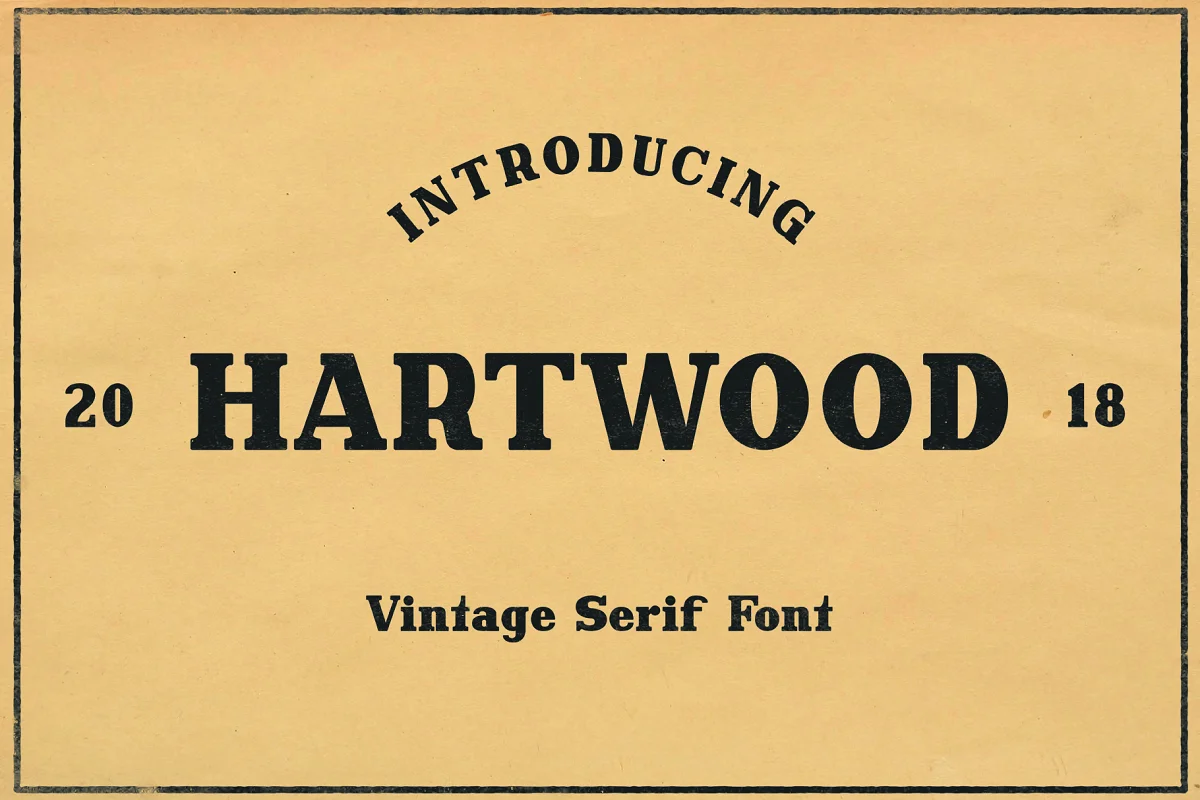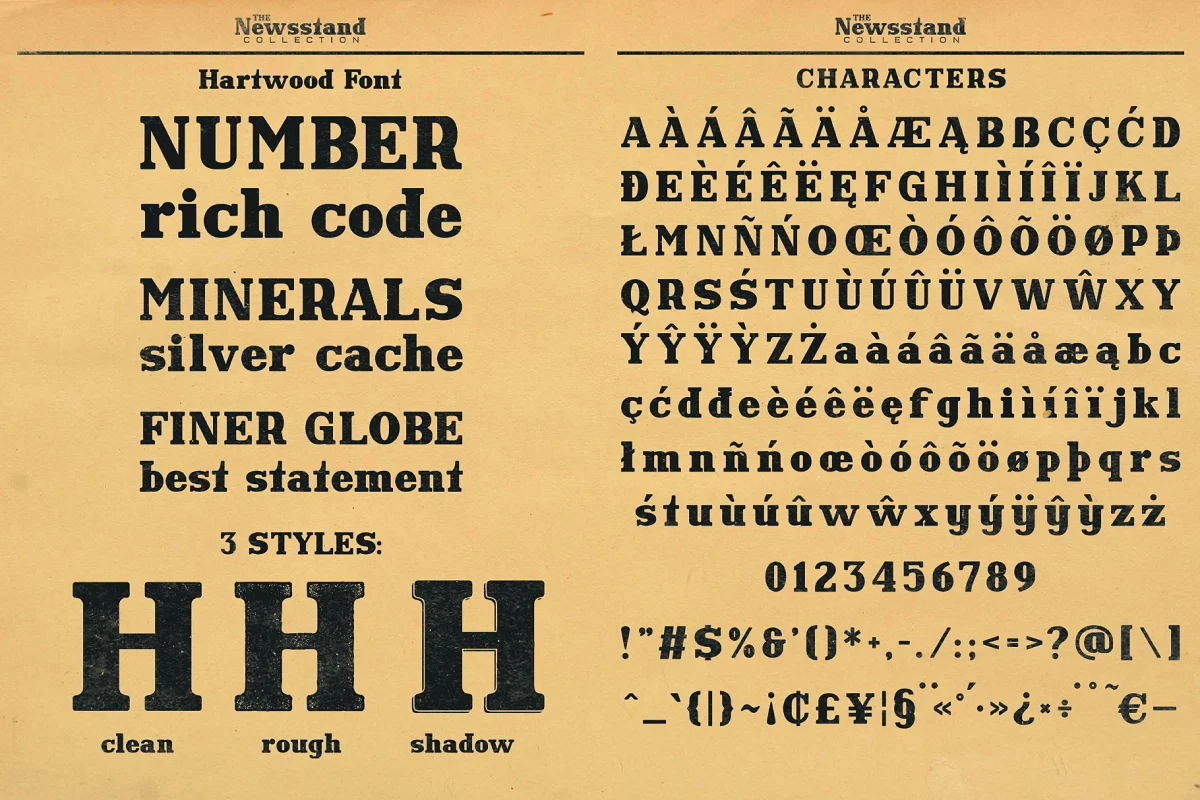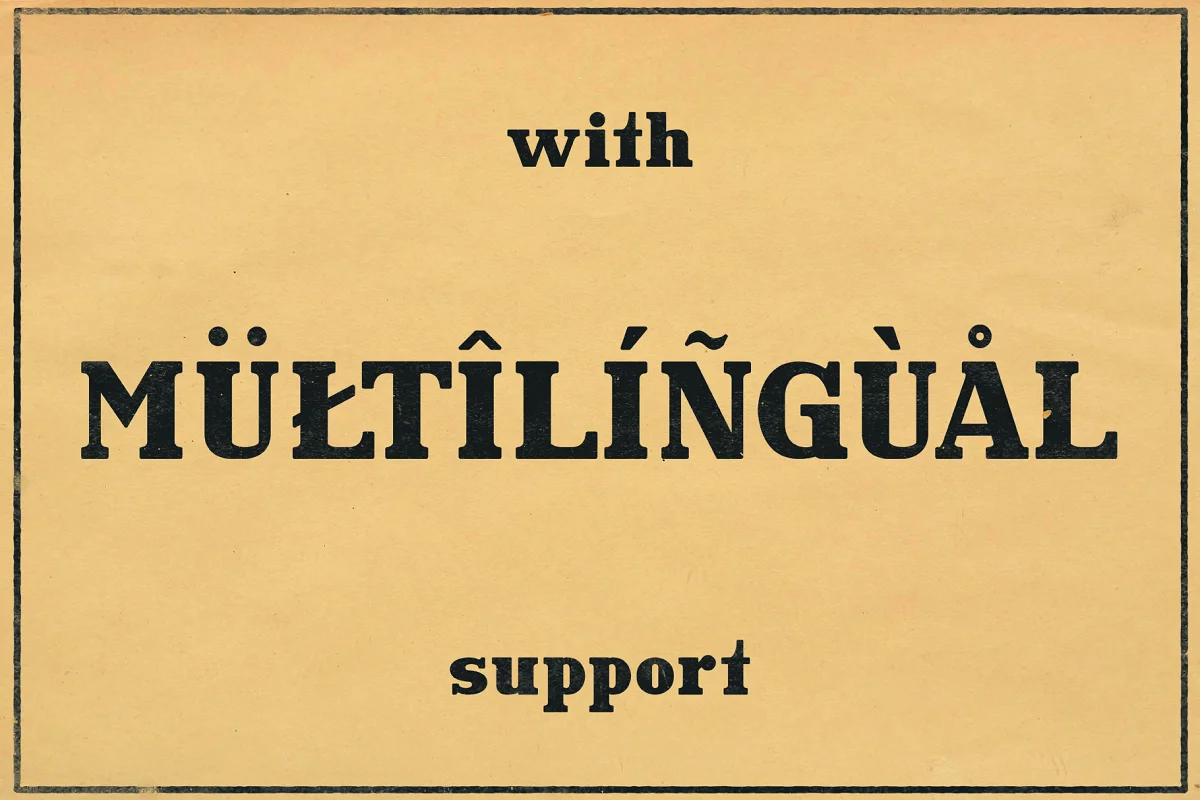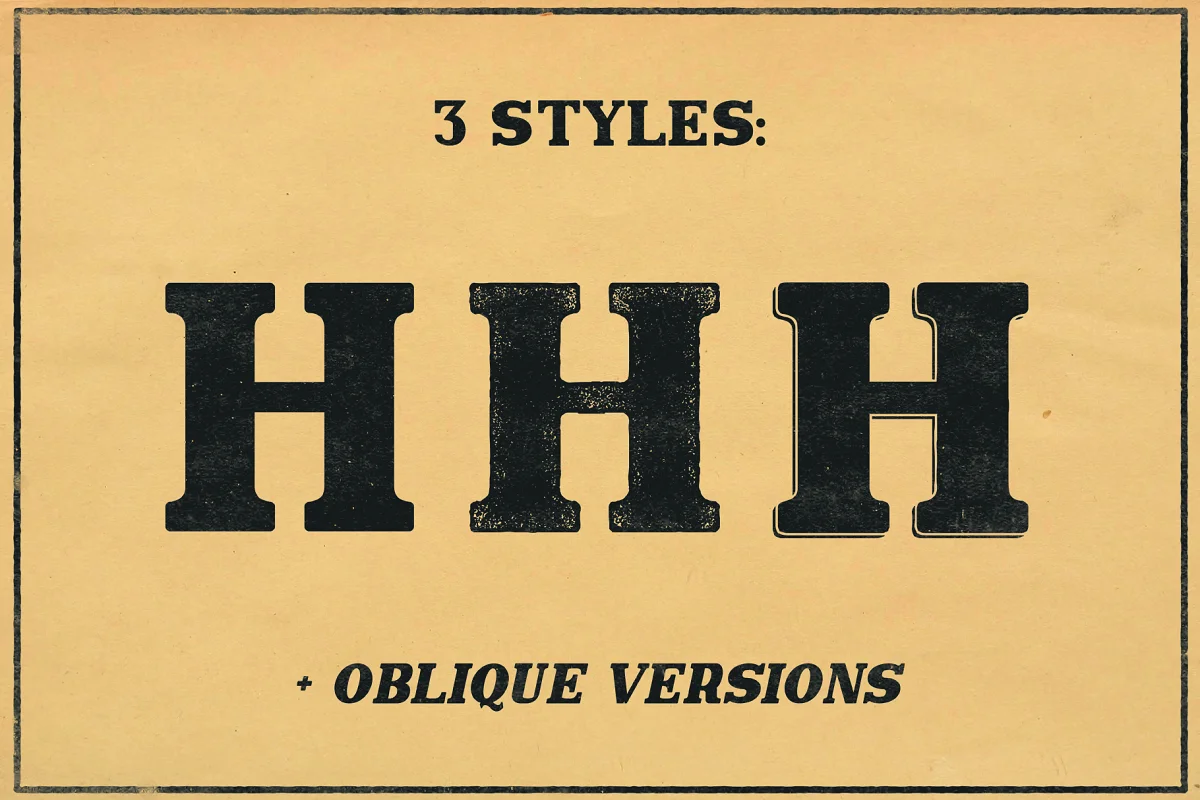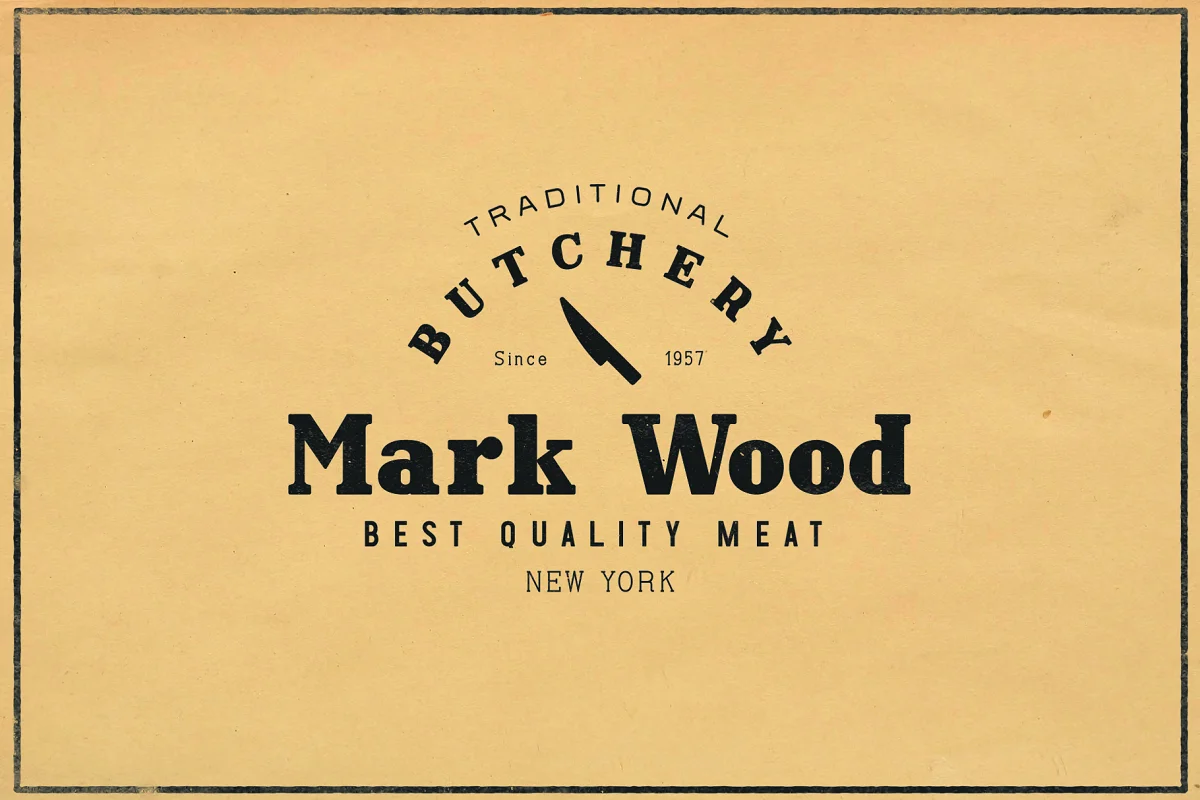
About the Hartwood Font
Hartwood is a vintage display serif font with upper and lower case letters inspired by retro newspapers and journals headers.
Hartwood comes in three styles: clean, rough, and shadow (+ oblique version for each style).
This typeface is great for headers, logos, signs, labels, brandings, and more. Enjoy!
Hartwood comes in six styles:
- clean + oblique
- rough + oblique
- shadow + oblique
Hartwood Font Update 1.1:
Language support:
Danish, English, Finnish, French, German, Icelandic, Irish, Italian, Norwegian, Portuguese, Polish, Spanish, Swedish, if you are not sure about it please type it out in the text box below or check Characters Map screenshots, I hope it will support your language 🙂